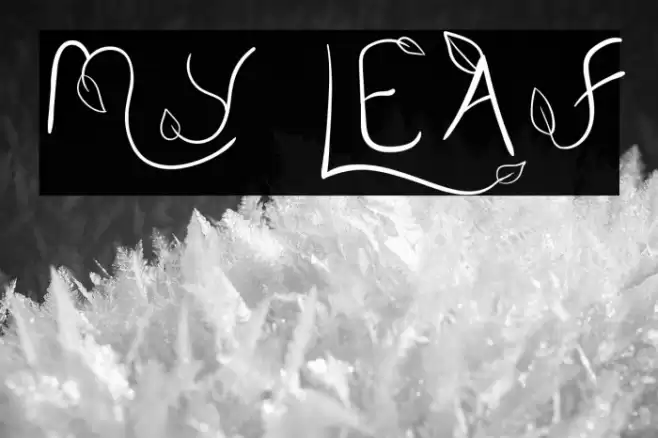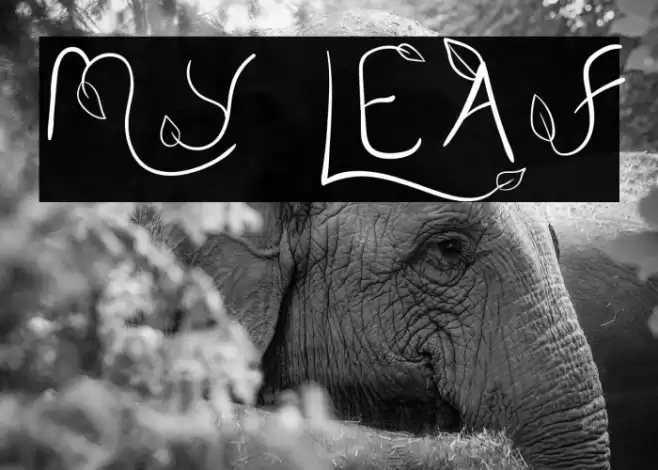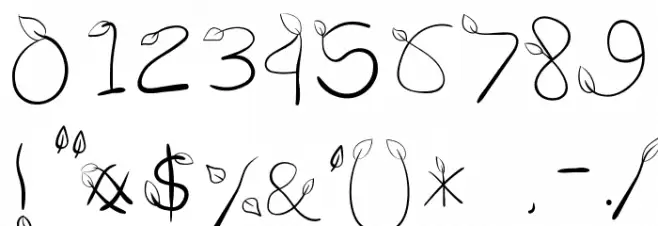
My Leaf Font
My Leaf Description
This font features a whimsical and organic design, incorporating leaf motifs into the structure of each character. The letters are elegantly curved, with delicate leaf embellishments that give a natural and artistic feel. The strokes are thin and graceful, creating a light and airy appearance. The font maintains a consistent flow, with each character seamlessly integrating the leaf elements, making it ideal for projects that seek to convey a sense of nature, growth, or eco-friendliness. The overall design is both decorative and readable, suitable for a variety of creative applications.
A whimsical, leaf-inspired font with elegant curves and natural motifs from Decorative fonts.
- Proposed Projects: Ideal for eco-friendly branding, nature-themed invitations, organic product packaging, and artistic posters.
- Use Case: Logos, Headlines, Invitations